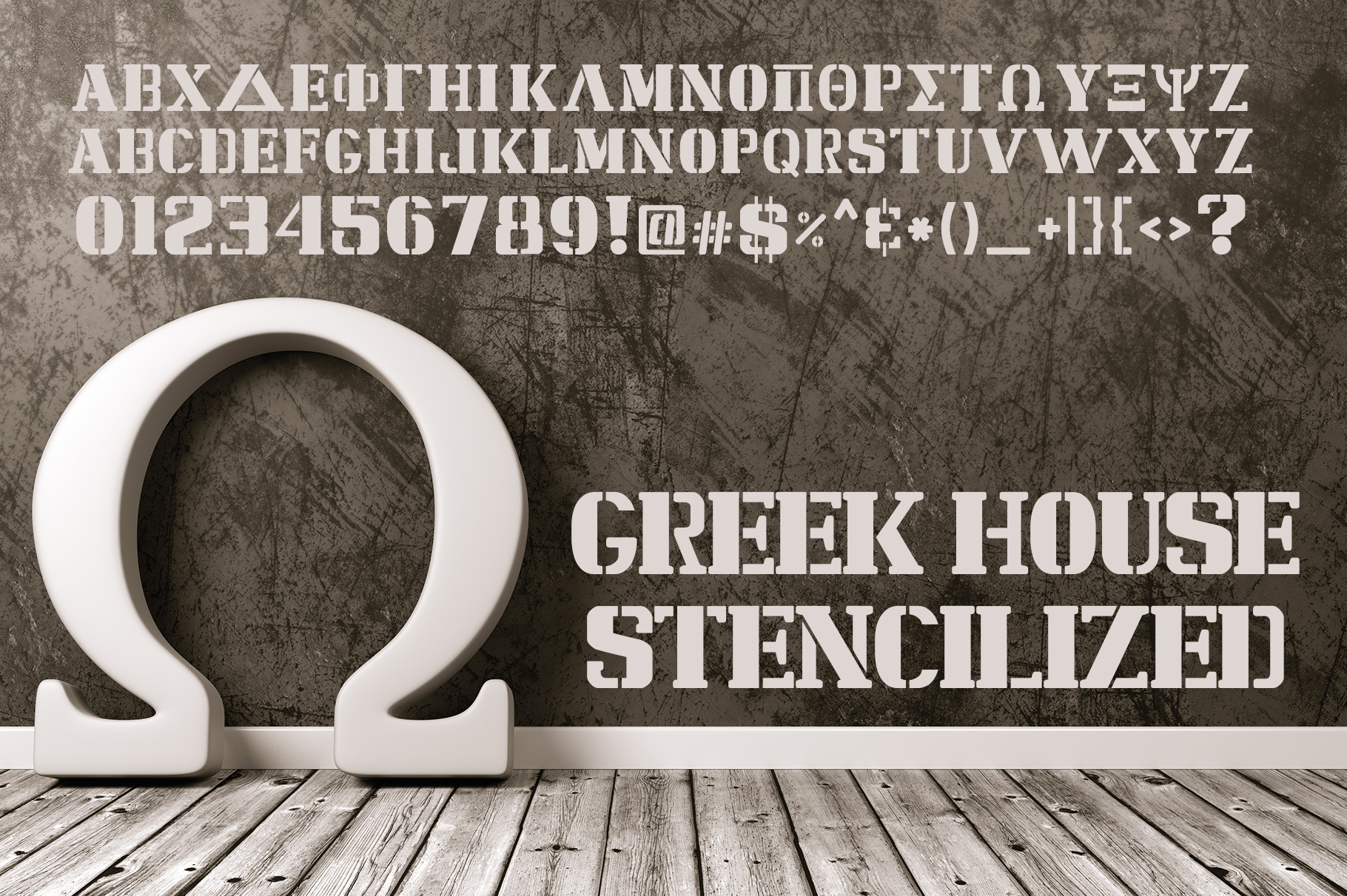
Stencilized Greek Font
The GreekHouse Stencilized font is great for designing Greek Fraternity and Sorority / Collegiate T-shirts, Sweatshirts, promo products and more. This Greek font has both Greek and English characters. Note this font is designed specifically for fraternities and sororities so it does not have lower case Greek fonts.
Type UPPERCASE for Greek characters and lowercase for English characters.